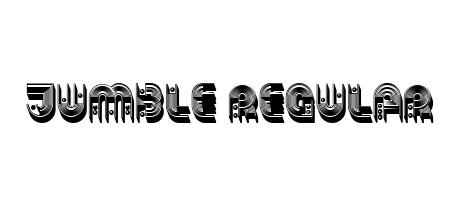
Jumble
Jumble Regular: A playful, bold display font. Its chunky, layered letters create a three-dimensional, almost embossed effect. The style is reminiscent of retro arcade games or 70s sci-fi, with slightly rounded corners adding a touch of friendly quirkiness to its assertive presence. The overall feel is energetic and fun.